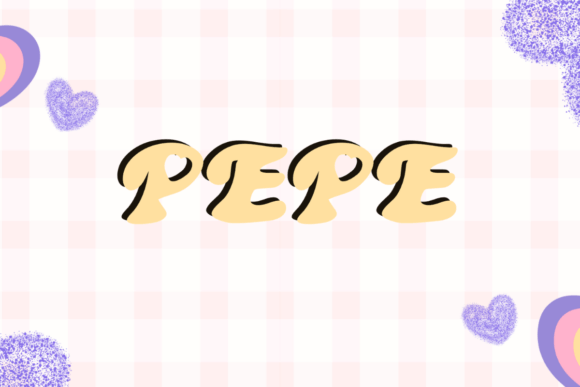
Pepe Font: A Cute Display Typeface for Your Brand
Last November, I sat at my kitchen table surrounded by kraft paper boxes, twine, and a stack of handwritten tags that looked nothing like the polished brand I had in mind. I run a small home bakery, and every holiday season I tell myself this will be the year my packaging finally feels cohesive. But my labels were mismatched, my social media graphics felt flat, and nothing tied the look together. That is when I found Pepe font, a cute with heart font and display font that instantly gave my brand the warmth and personality I had been searching for. This is the story of how one typeface changed the way my business looks, feels, and connects with customers.
Pepe Font for Christmas Packaging and Holiday Labels
When I started designing my Christmas cookie boxes last year, I wanted the packaging to feel festive without being loud. I tried a few display fonts, but they either looked too serious or too childish. Then I discovered Pepe, and something clicked. Pepe is a cute with heart font and display font that carries a soft, affectionate mood perfect for holiday treats. I used it for the main label on each box, pairing the word "Merry & Sweet" with a small heart accent. The letters feel playful yet intentional, and the heart details woven into the font made the packaging feel genuinely thoughtful. Customers started posting photos of the boxes on social media, and several mentioned how the typography made the gift feel extra special. For a small bakery, that kind of organic attention is gold.
The font worked beautifully on my thank-you cards too. I printed a simple note that read "Baked with love" using Pepe, and the display style added a handmade charm that standard fonts could not replicate. If you sell anything seasonal, from candles to gift sets, Pepe can give your holiday lineup a cohesive, heartwarming look without requiring a designer.
How Pepe Display Font Elevates Valentine’s Day Branding
Valentine’s Day is another moment where the right display font can make or break your visuals. I watched a friend who runs a small skincare line redesign her product labels for February, and she used Pepe for the limited-edition "Sweetheart Serum" bottles. The font’s cute with heart style matched the romantic theme perfectly. The labels stood out on the shelf because the typography felt personal, not corporate. She told me that customers often mentioned how the bottle looked like a gift, even when it was just a regular purchase. That is the power of a font that carries emotion.
If you create Valentine’s content for your shop, try using Pepe on your Instagram story backgrounds, product mockups, or even your website banner. The display lettering reads clearly on mobile screens, which is important because most of your customers will see your brand on a phone first. I tested Pepe on a small banner for my bakery’s Valentine menu, and the text remained crisp even at thumbnail size. For a small business owner, that kind of readability saves time and keeps your brand looking professional.
Adding Pepe to Craft Product Labels and Handmade Packaging
My sister makes handmade soy candles, and for months she struggled with labels that looked too generic. She wanted her brand to feel cozy and approachable but also refined. When she redesigned her labels using Pepe, the change was immediate. She used the font for the candle names, like "Vanilla Hug" and "Cozy Cabin," and paired it with a simple sans serif for the scent descriptions. The combination made her products look like they belonged in a boutique. She told me that her repeat customers started noticing the upgrade and even asked if she had hired a designer. She had not. She just found a display font that matched her brand voice.
Pepe works exceptionally well for short phrases, product names, and decorative accents. On candle jars, soap wrappers, or tag labels, the heart motifs in the font add a subtle touch that feels intentional without being overwhelming. If you sell handmade goods on platforms like Etsy or at local markets, this font can help your packaging feel consistent and premium, even if you are working on a small budget.
Pepe Font for Bakery Boxes, Café Menus, and Food Branding
Let me walk you through how I used Pepe across my bakery’s visual identity beyond just holiday boxes. I redesigned my menu board for the café corner where I sell pastries, and I used Pepe for the category headers like "Daily Bakes" and "Sweet Treats." The display style made the menu feel inviting, and customers often commented that the board looked like it belonged in a charming Parisian patisserie. For the item descriptions and prices, I used a clean sans serif font to keep everything readable. That pairing allowed Pepe to shine as the headline element without hurting legibility.
If you run a café, juice bar, or food truck, consider using Pepe for your chalkboard menus, window decals, or even your to-go bags. The font’s friendly personality makes people feel welcome before they even taste your product. I printed small stickers with the word "Enjoy" in Pepe and placed them on every pastry box. It is a tiny detail, but customers notice it. One regular told me that the sticker made her smile every time she picked up her order. That kind of emotional connection is exactly what small businesses need to build loyalty.
Pairing Pepe Font with Clean Sans Serif Styles for Balance
A common question I hear from other business owners is whether a decorative display font can still look professional. The answer is yes, but only if you pair it thoughtfully. I use Pepe for headlines, logos, and short accent phrases, not for long paragraphs. For body text, I pair it with a simple sans serif like Montserrat or Open Sans. That way, the design stays balanced. The Pepe font adds personality to the parts of your brand that need to stand out, while the sans serif handles the practical reading. This combination works on websites, product labels, business cards, and social media graphics.
Choosing Pepe for my bakery was one of the simplest decisions that had the biggest visual impact. The font gave my brand a cohesive identity that I had been chasing for months. Whether you are launching a new product line, refreshing your packaging, or simply trying to make your social media feel more connected to your products, Pepe offers a warm, memorable style that customers notice and appreciate.